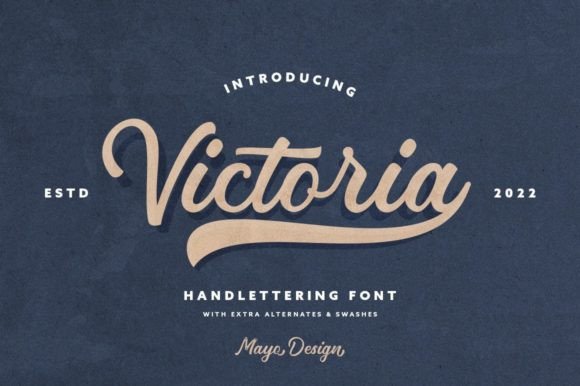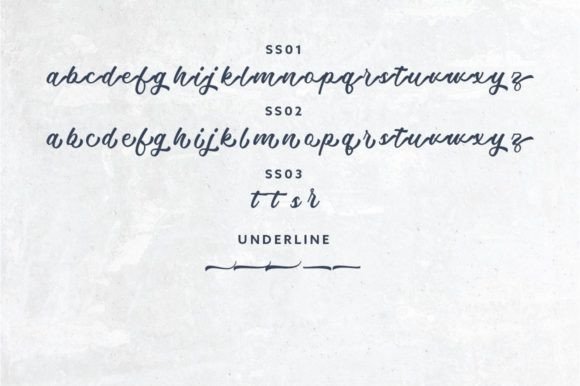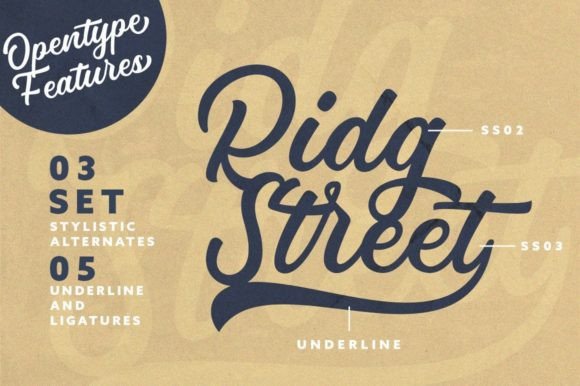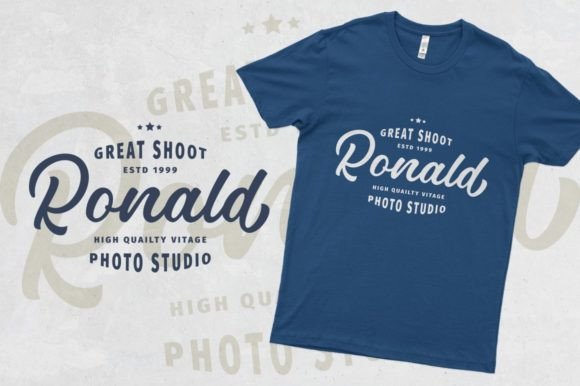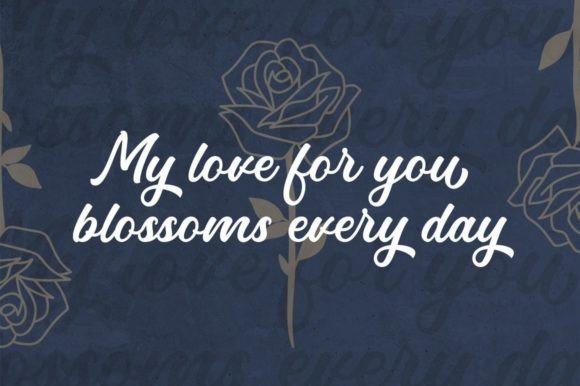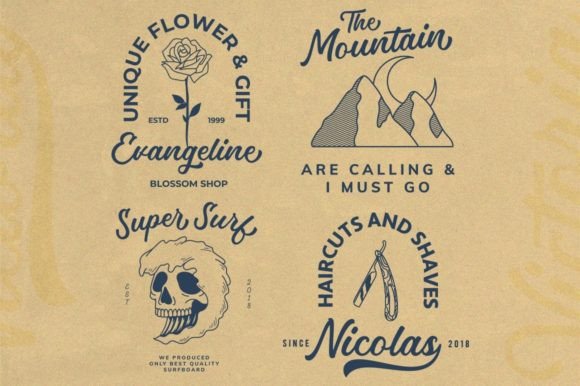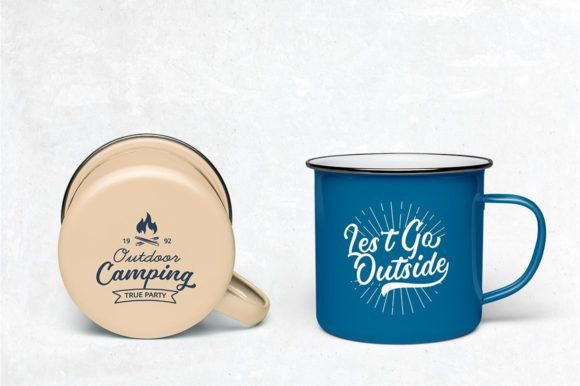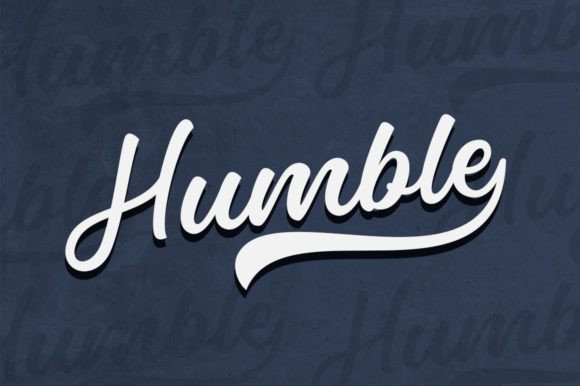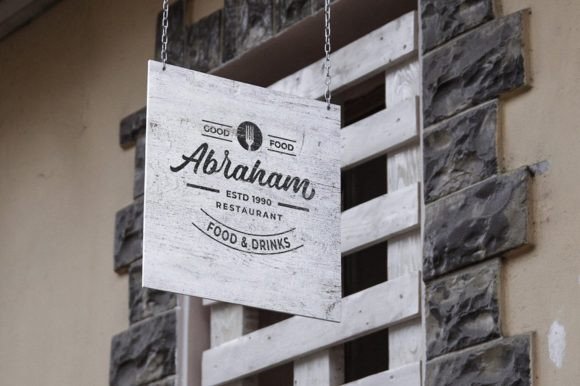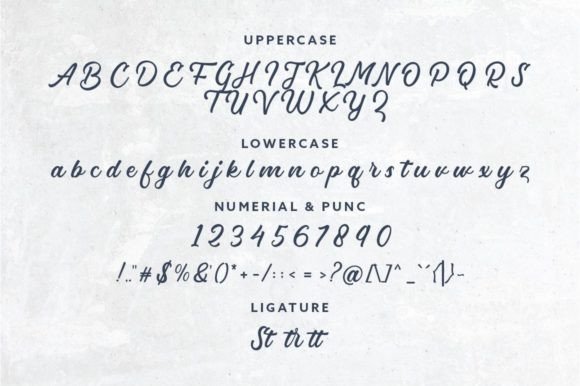
Victoria Font
About Victoria Font
Victoria is a contemporary script font that exudes a stunning vintage flair. This font is a versatile choice for a wide range of design projects, including logos, covers, posters, quotes, product packaging, merchandise, social media graphics, and much more. With its combination of modern aesthetics and vintage charm, Victoria is designed to bring a touch of elegance and sophistication to your creative works.
The PUA encoding of Victoria is a notable feature, providing easy access to a variety of glyphs and swashes. This feature enhances the font’s versatility, allowing you to customize and personalize your designs effortlessly. Whether you want to add decorative elements or unique flourishes, Victoria empowers you with creative freedom.
The modern script style of Victoria makes it suitable for contemporary design applications, while its vintage flair adds a timeless and classic touch. This dual personality allows the font to adapt seamlessly to various contexts, making it a reliable choice for projects that require a blend of the old and the new.
Whether you’re crafting a distinctive logo, designing eye-catching product packaging, or creating engaging social media graphics, Victoria offers the aesthetic versatility needed to make your designs visually appealing and memorable.
In summary, Victoria is more than just a font; it’s a design asset that marries modernity with vintage charm. Embrace its stunning script style and PUA encoding capabilities as you infuse a touch of elegance into your logos, posters, merchandise, and beyond. Let Victoria be the font that elevates your creative endeavors with its unique blend of contemporary sophistication and timeless vintage flair.